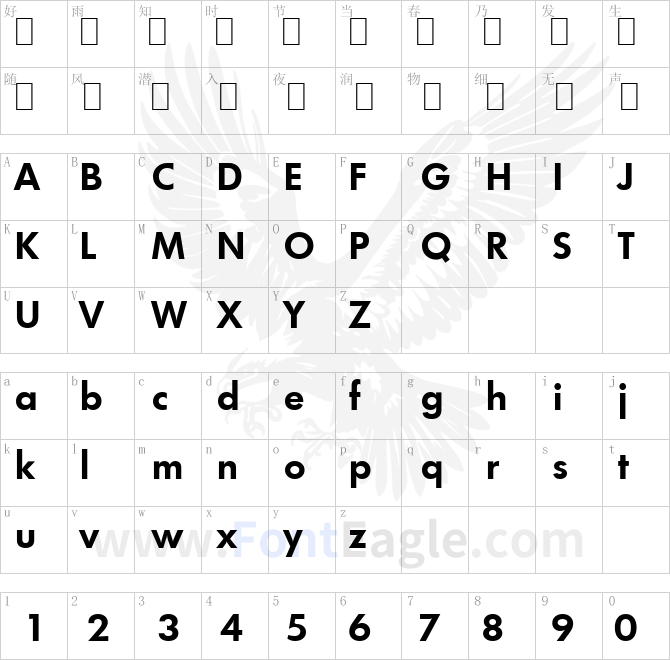
Limerick-Serial-Bold is a great font, widely used in graphic design, single-page menu design, poster design and other fields, and is deeply loved by designers.Limerick-Serial-Bold download.